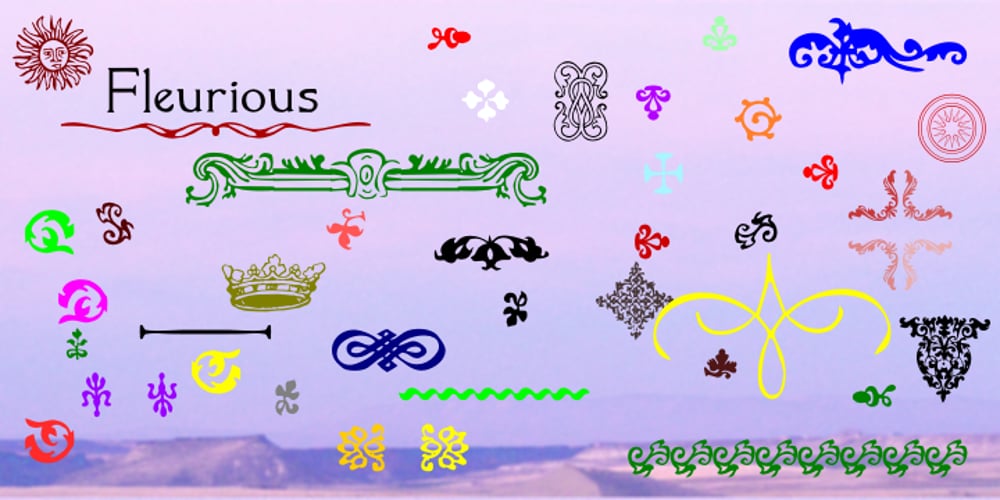
Fleurious Font Family was designed by Shane Brandes and published by Proportional Lime. Fleurious contains 1 styles and family package options. This font was inspired by the many changes in printing habits over the last half millennium. Every book has a story and sometimes the printing itself can be its own story. Every era has its own tendencies in decorative elements and these practices were observed and included such that the font contains over 200 hundred glyphs with which to add variety to your documents. It is provided with a complete character map.